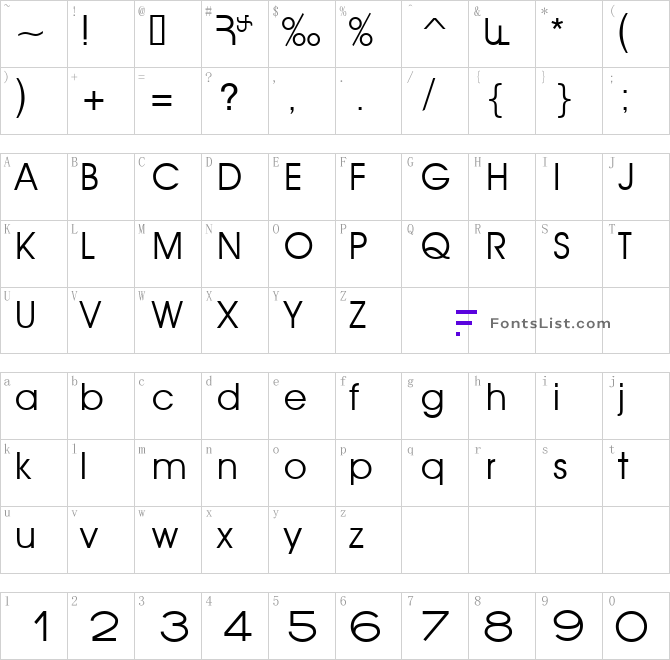
- Font Name:ArTarumianKamar
ArTarumianKamar.ttf is a very beautiful artistic font, ArTarumianKamar.ttf is widely used in the design and printing of various books and pictures,ArTarumianKamar.ttf has a strong visual impact,ArTarumianKamar.ttf is a commonly used font in newspapers, magazines and books, and is used in posters, e-commerce Poster design, store design, logo design, font design and other fields.ArTarumianKamar.